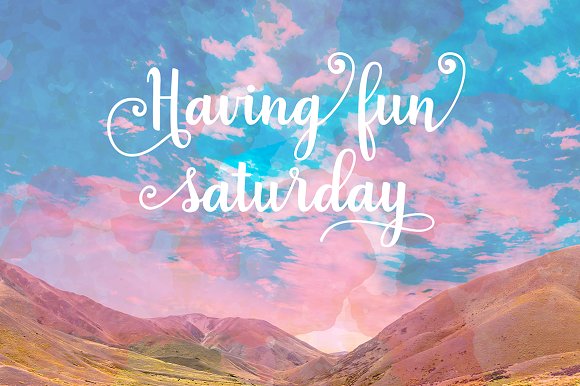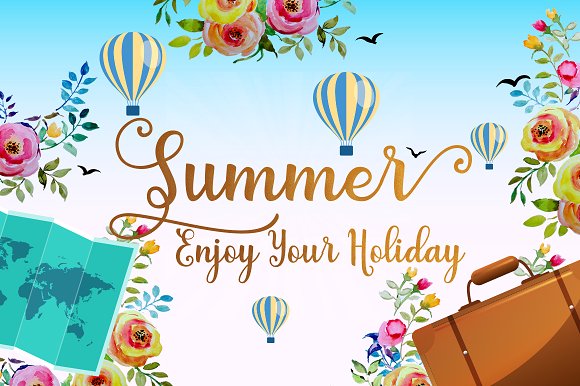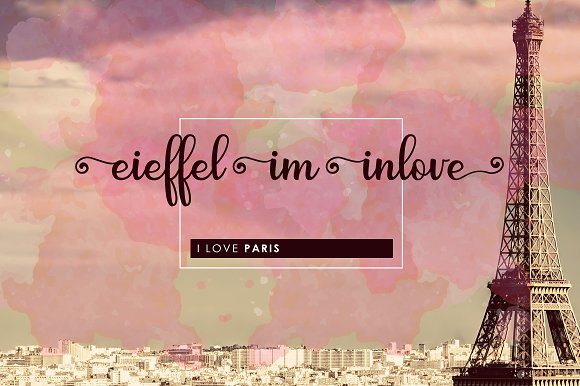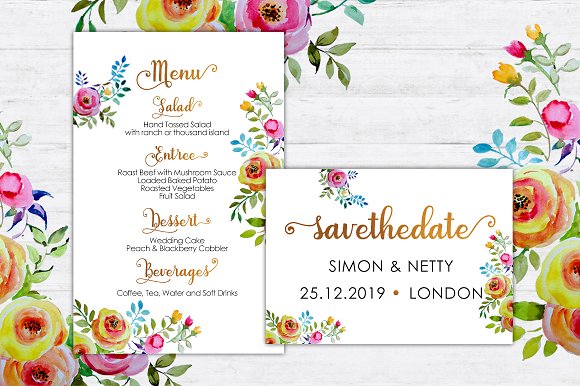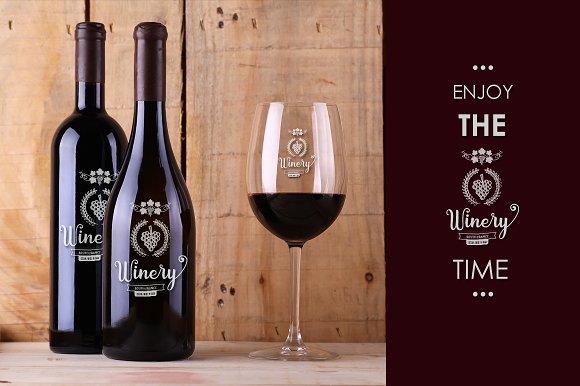
Blangku Font
About Blangku Font
Blangku is a hand drawn font created by Jorsecreative.
The typeface has a unique fluid calligraphy style that fits in modern day designs. Blangku comes with 469 glyphs and alternate characters which leaves you plenty of variation to use this font over and over again and still create something unique each time you use it.